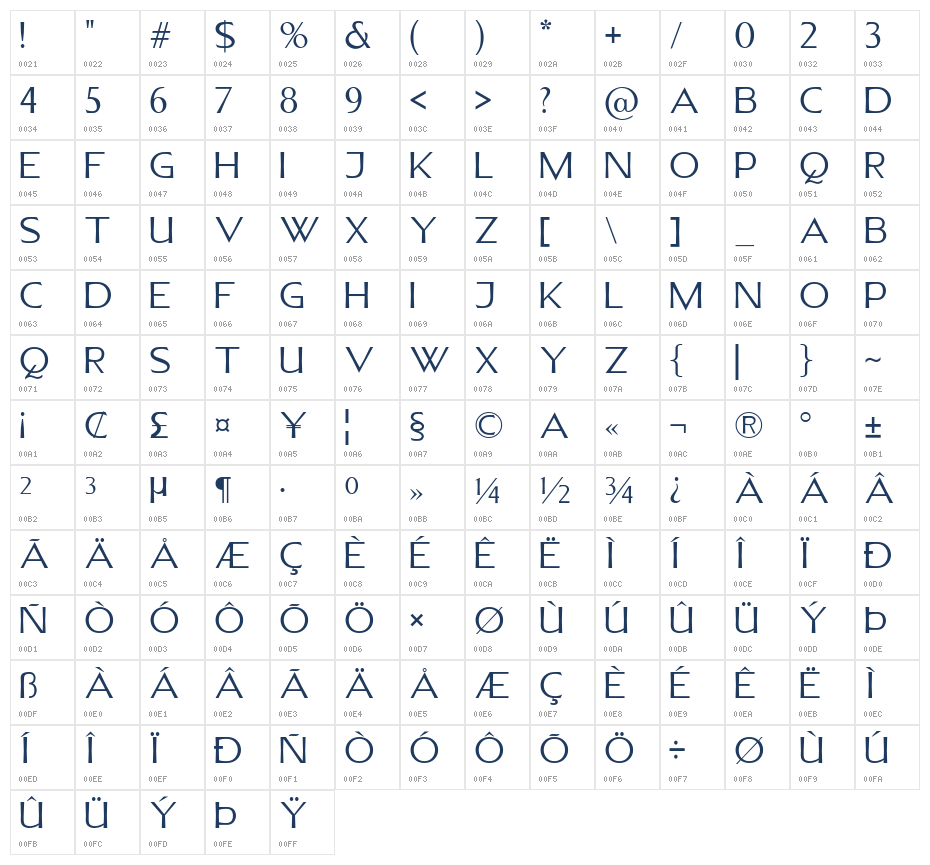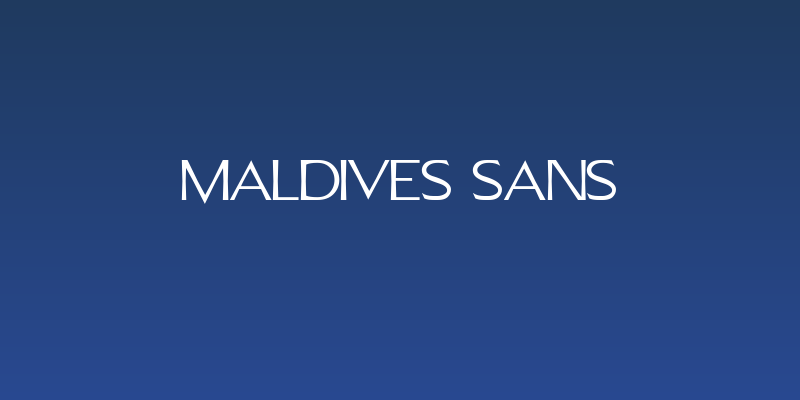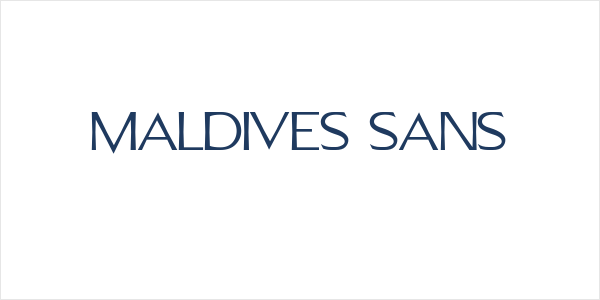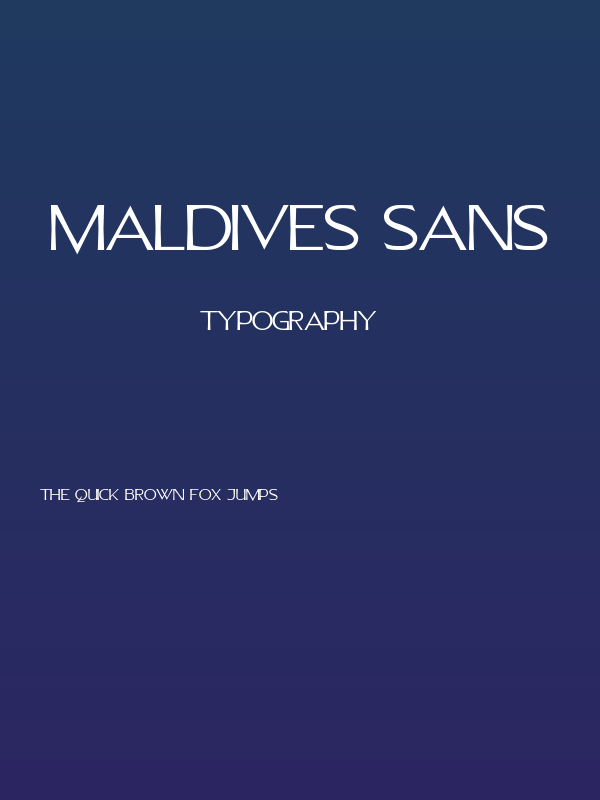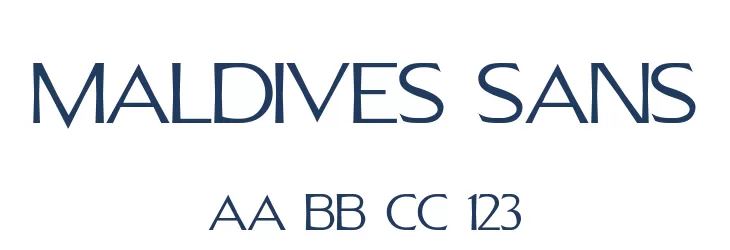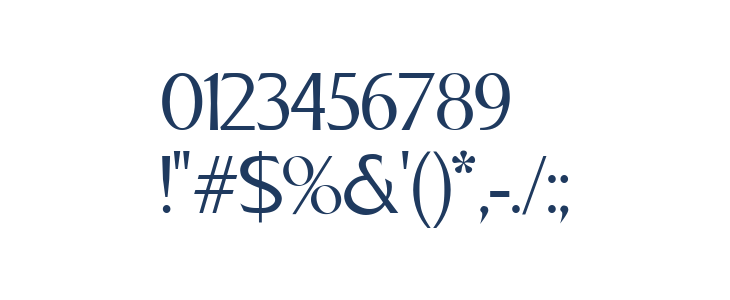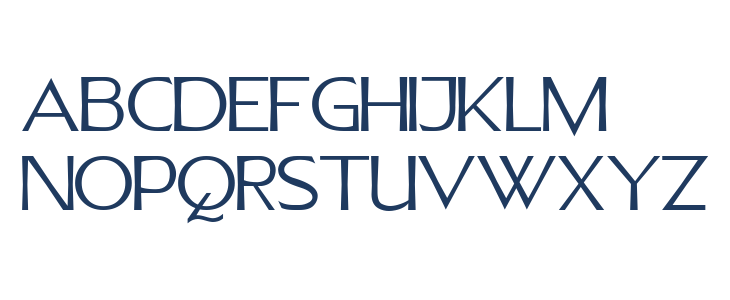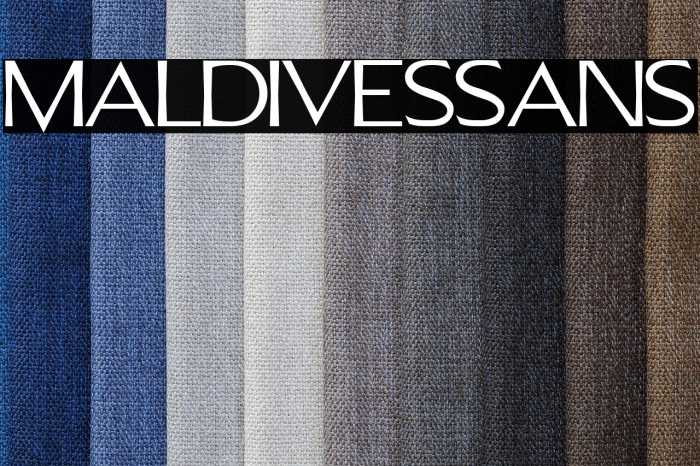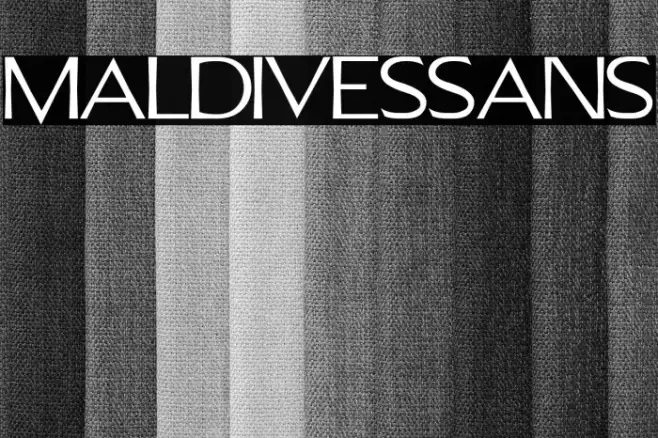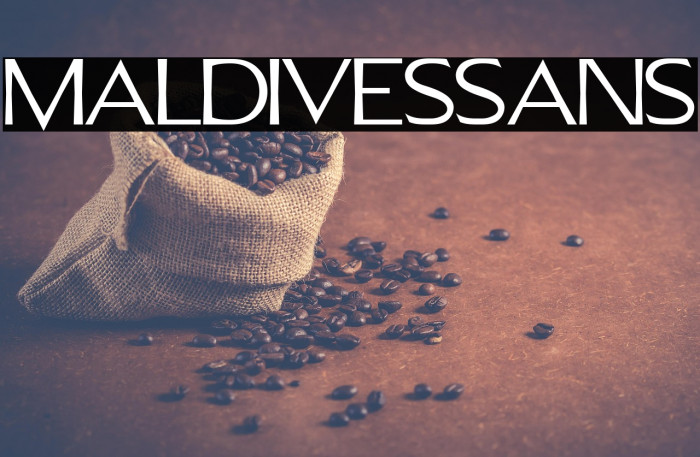
Maldives Sans Font
Maldives Sans Description
A modern, geometric sans-serif font with a sleek and stylish appearance, featuring sharp angles and clean lines.
Maldives Sans
| Overall Style | Modern, Geometric |
| Use Case | Headlines, Logos, Digital interfaces |